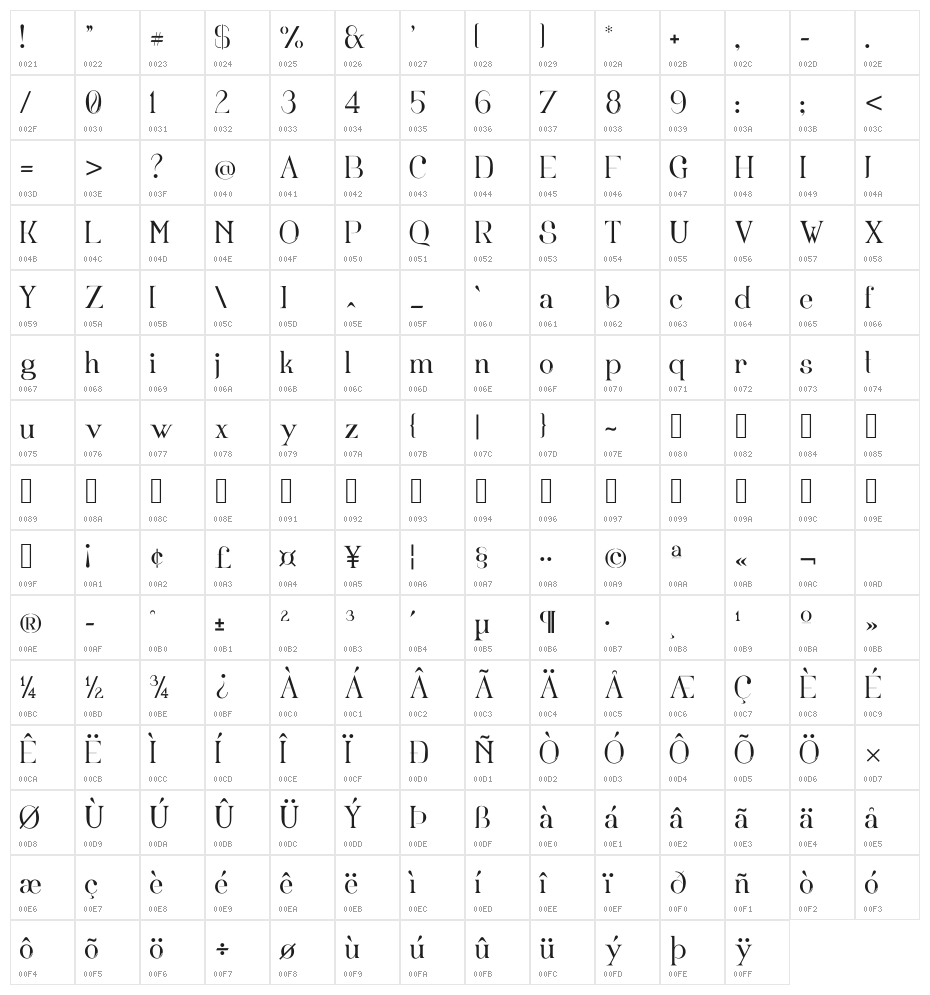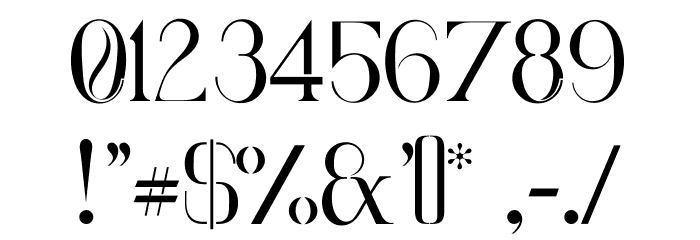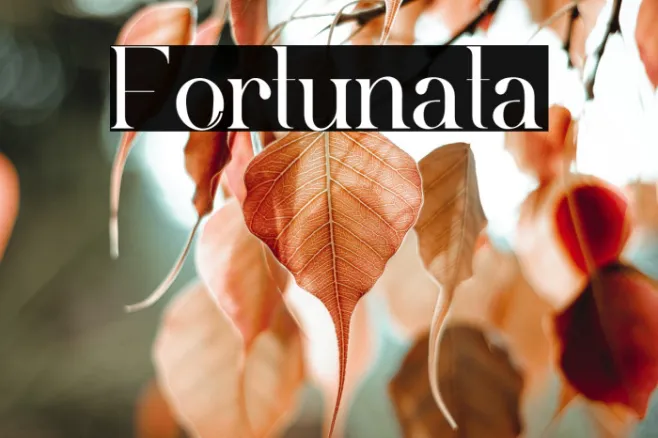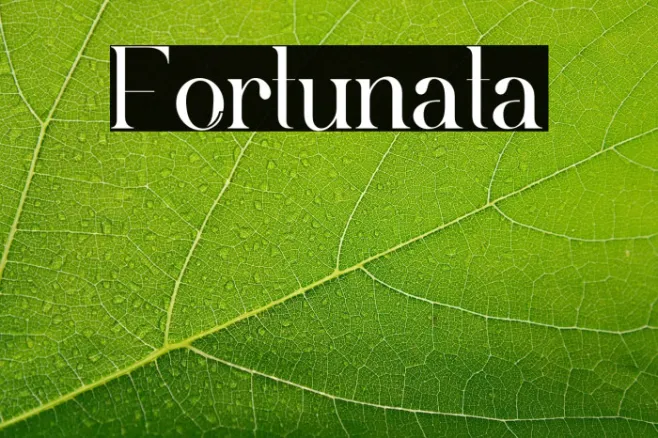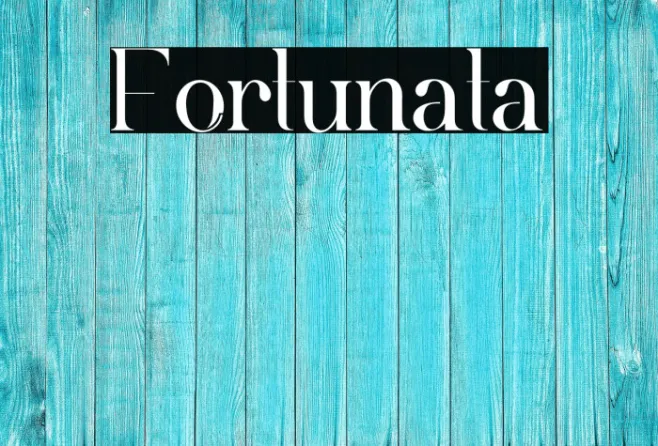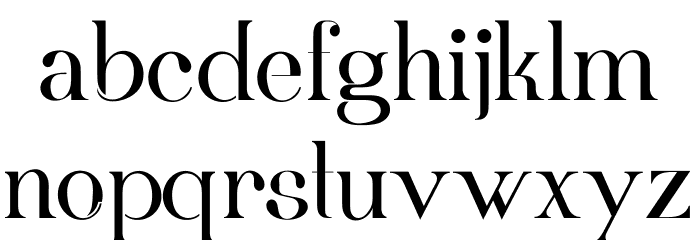
Fortunata Font
Fortunata Description
This font exhibits a unique blend of elegance and modernity, characterized by its high contrast between thick and thin strokes. The uppercase letters are particularly striking, with elongated verticals and sharp serifs that give a sense of sophistication and authority. The lowercase letters maintain a consistent style, with a slightly more relaxed feel, making them versatile for various design applications. The numerals are well-proportioned and maintain the font's overall aesthetic, while the special characters are distinct and stylish, adding to the font's versatility. This font is ideal for projects that require a touch of elegance and modern flair.